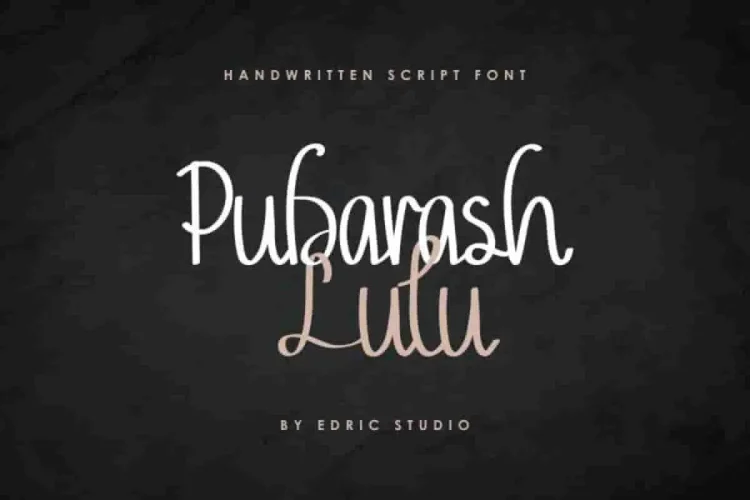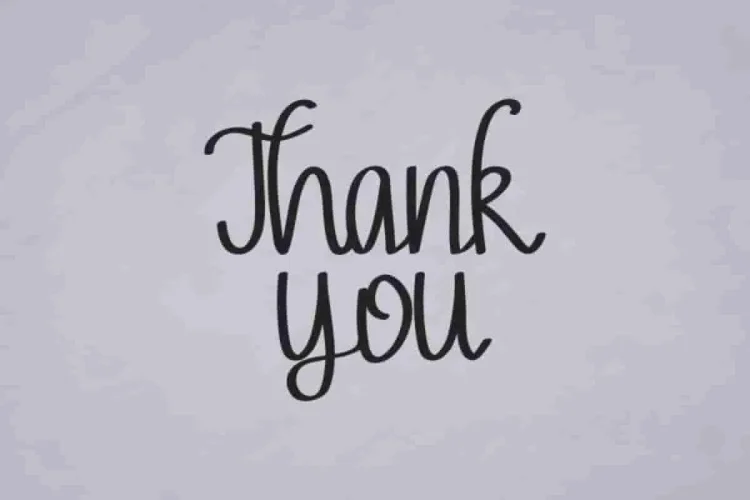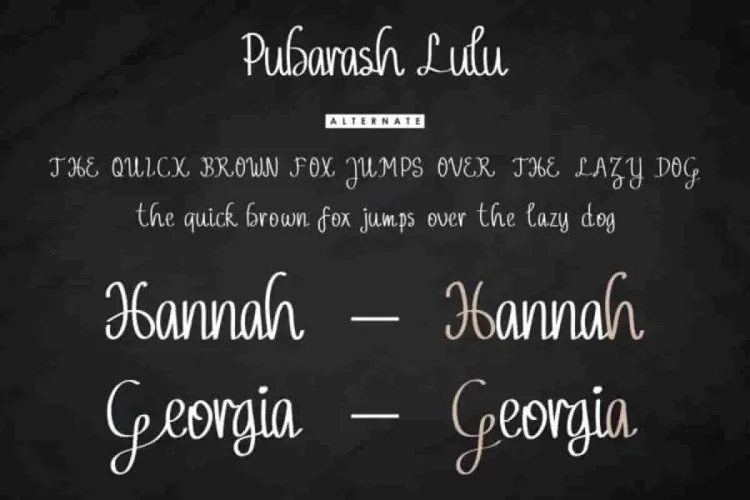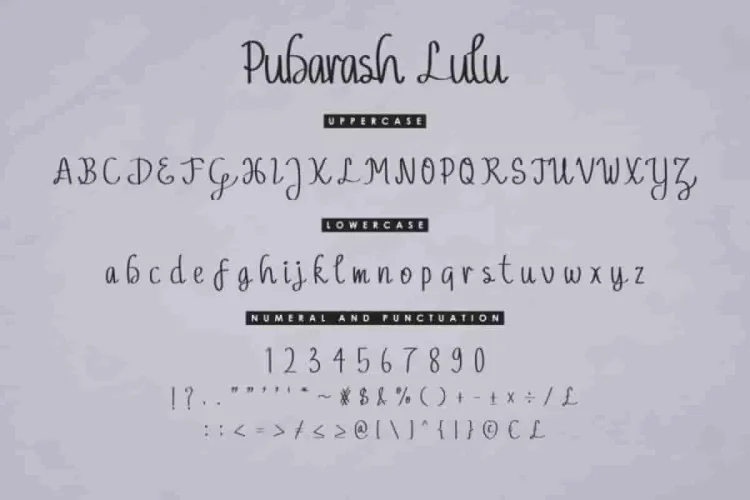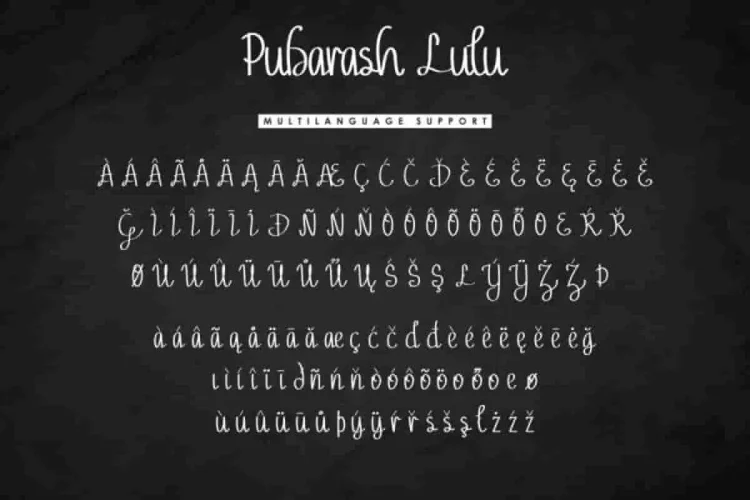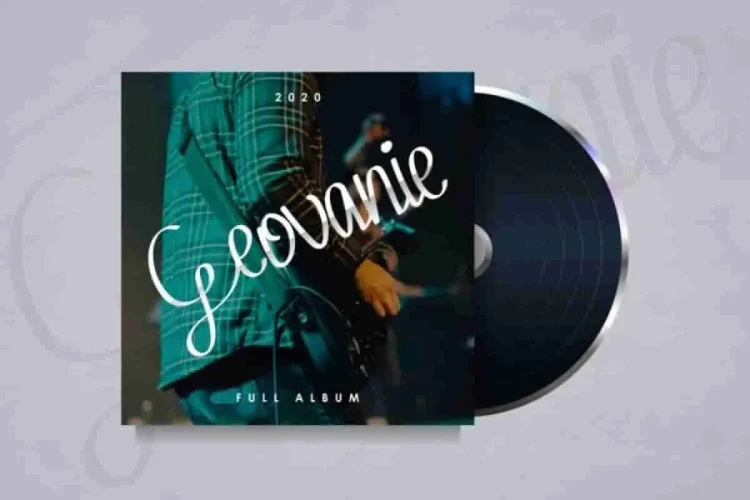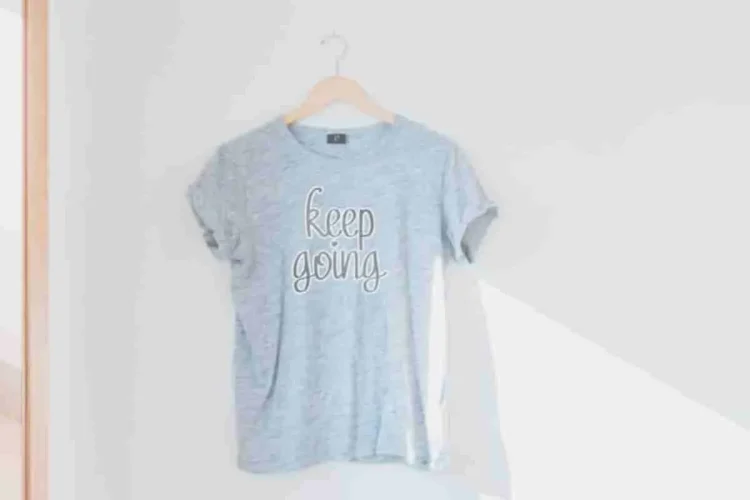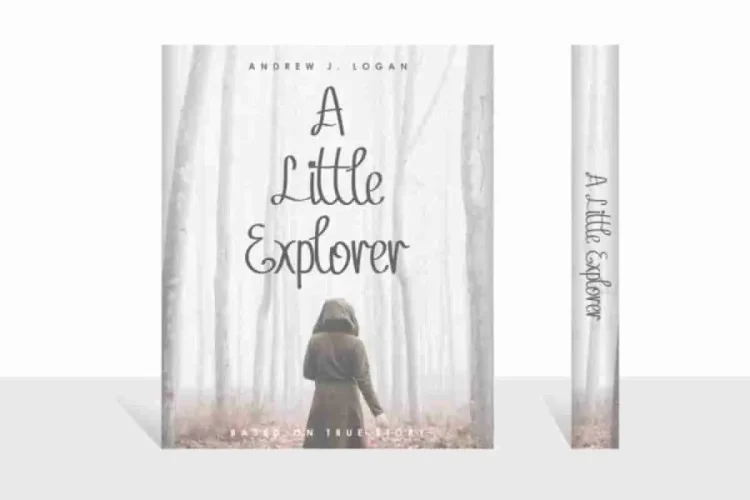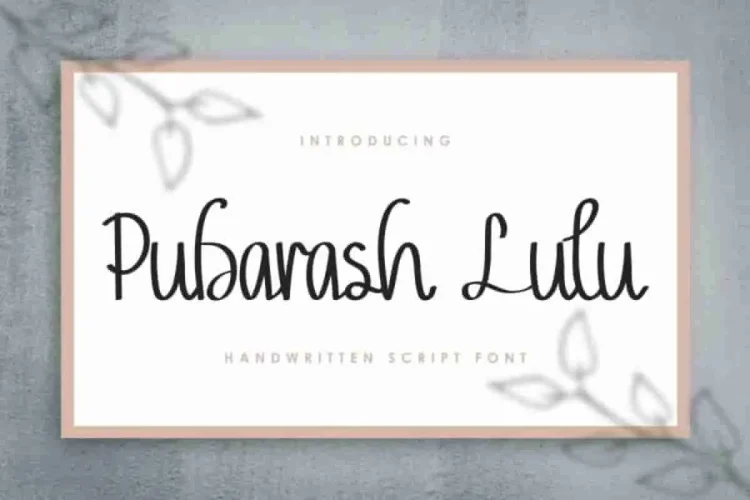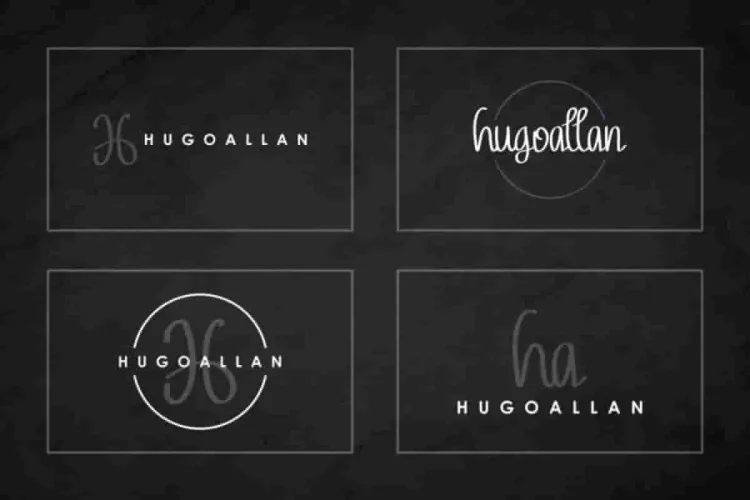
Pubarash Lulu Handwritten Script Font
It is us again : EDRIC Studio. This time, we proudly introduce the newest font Pubarash Lulu Font.
To begin with, Pubarash Lulu Font was made in 2020 from Bandung and Garut, Indonesia. By our artists : Widiyanti and Sarah Suci.
This font has a great handwritten script style with a natural effect. You can explore any of your projects with the exclusive glyphs of Pubarash Lulu Font. And surely Pubarash Lulu comes with complete international language support.
Specifically, Pubarash Lulu works beautifully for a wide range of projects (need extended license), including : logotype, stationery, business card, signage, flyer, brochure etc. Furthermore, this font matchs all categories professionals like law firm, real estate, wedding, advertisement, florist, makeup artist, musician, etc